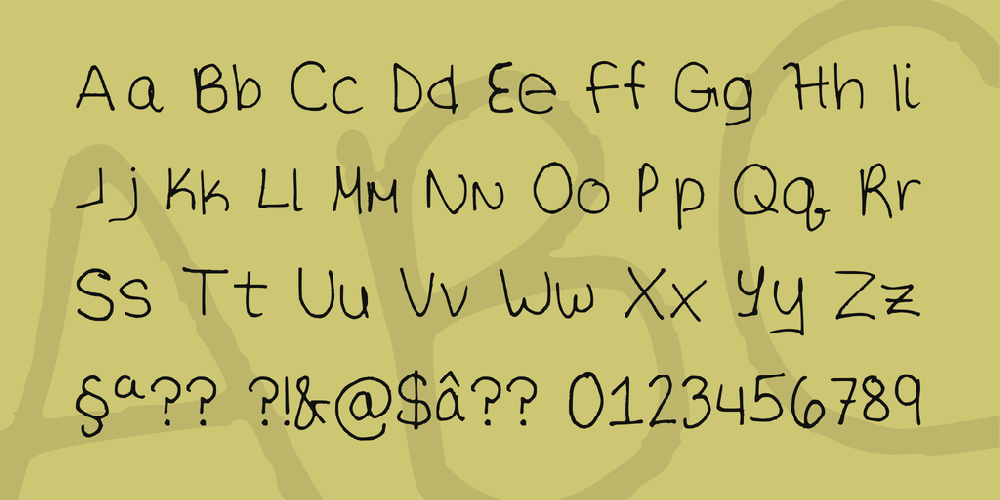
Review Of Og Fonts References. Crazy perspective à € by misti's fonts. 15free og fonts og my god.
The Og Font Is A Handwritten Typeface.
It looks unique and simple in its texture which has light, round, easy and small letters. It produces copy and paste fonts theat can be easily used on robloc to change the font style. Fan fonts are freely available for modern warfare, world at war, and the other games in the series.
As They Do Not Have Small Strokes At The End Of Letters, Sans Serif.